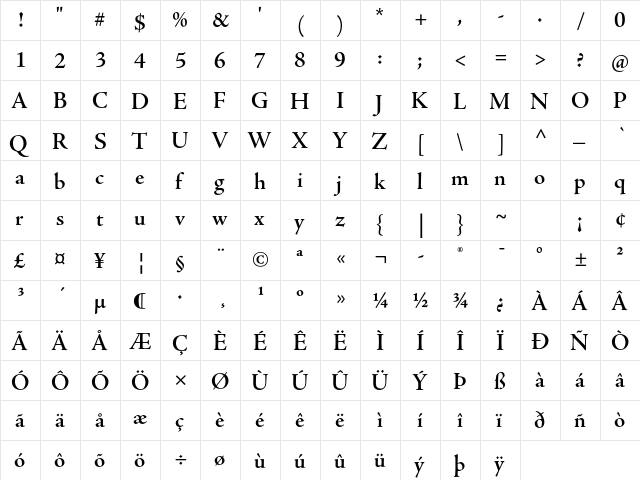
Adobe Jenson Pro Semibold Subhead
| Designer | Robert Slimbach |
Design Context for Adobe Jenson Pro Typeface
Adobe Jenson Pro takes a measured approach to typography — its balanced proportions and neutral character make it a reliable workhorse for both digital and print work. The heavy weight commands attention and anchors typographic hierarchies.